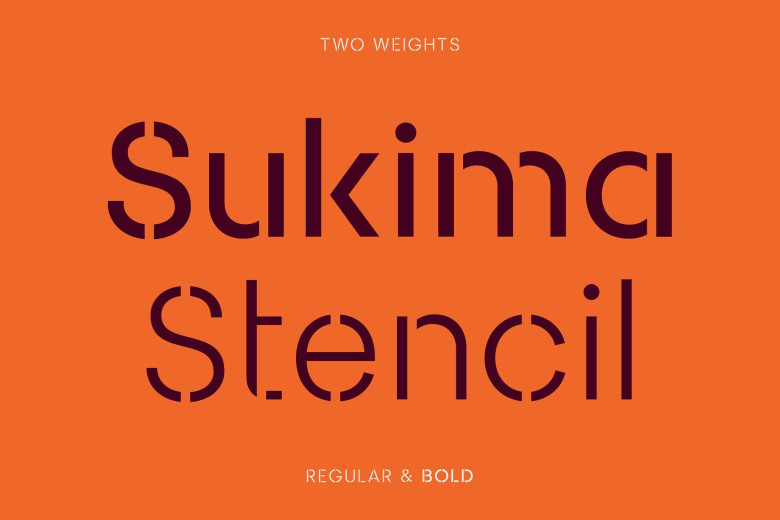
Sukima Stencil Font
Introducing Sukima. It is designed by Platform Design, this is a premium font, are sold on creativemarket, but it was great, it is free today for download. Sukima is a new, contemporary sans-serif stencil display font that is equally at home in a bold industrial inspired design or a modern, minimal design. Particularly impactful as titles and creating logos, Sukima Stencil is can also be used for body copy. Sukima Stencil comes in two weights, regular and bold, uppercase and lowercase, with a large number of glyphs and multi-lingual support.